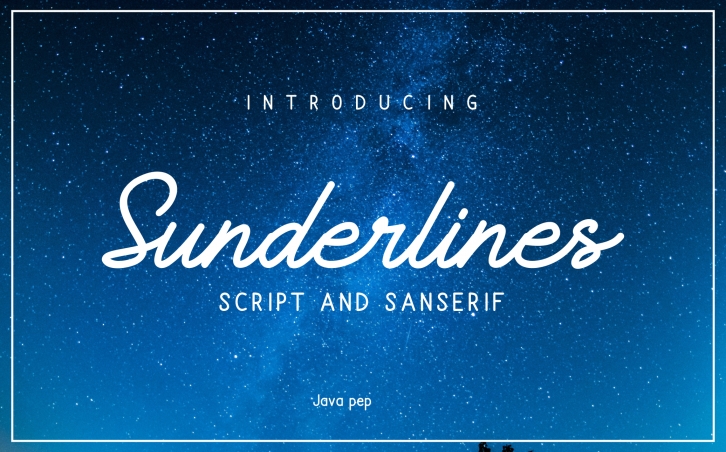
Sunderlines is a gorgeous font that was realeased on January 13, 2018. The font can be used in many style contexts and design environments. Perfect for invitations, magazines, websites, logos, and more! It was designed by JavaPep and the file size is 10.10 MB. Thanks for checking out this font!